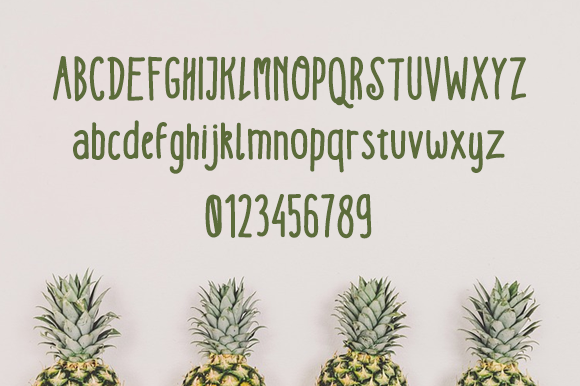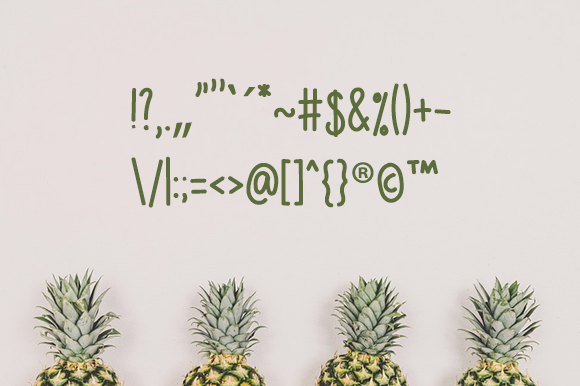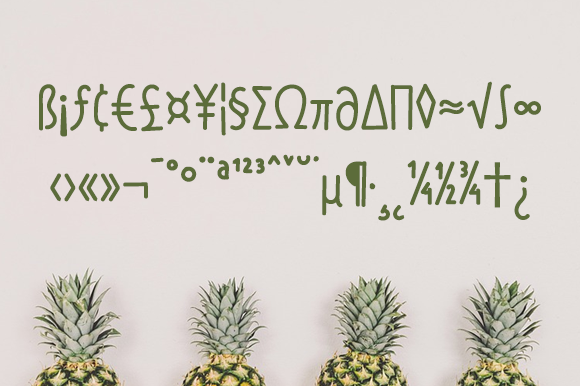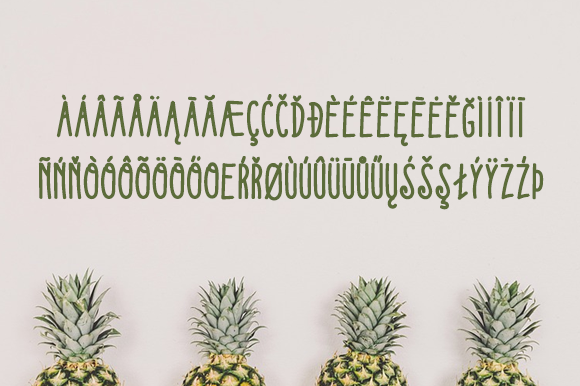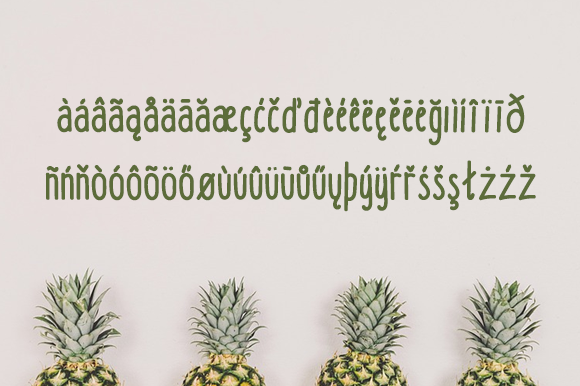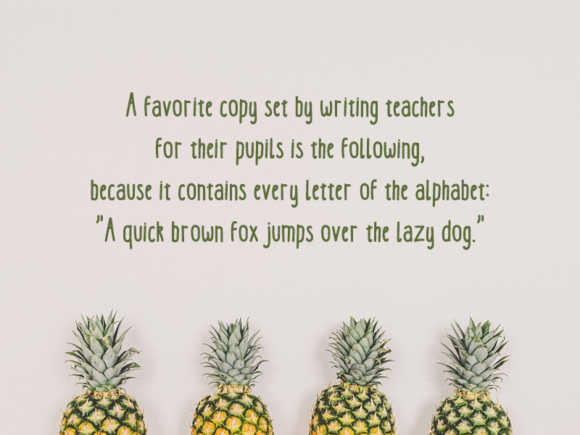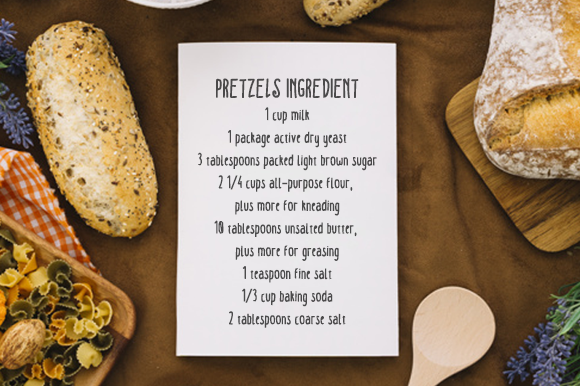
Kedjoe Font
About Kedjoe Font
The Kedjoe is a striking handwritten typeface. It was inspired by a high school writing style that has personal characters with a sweet touch.